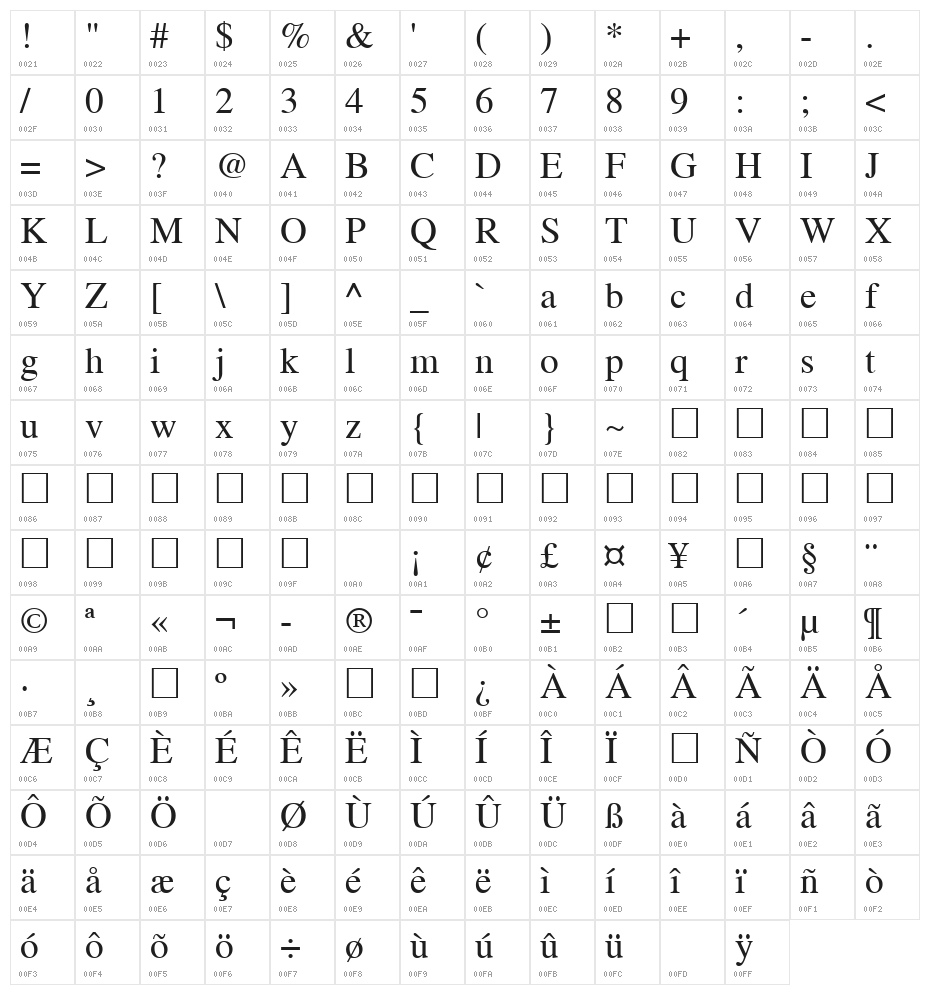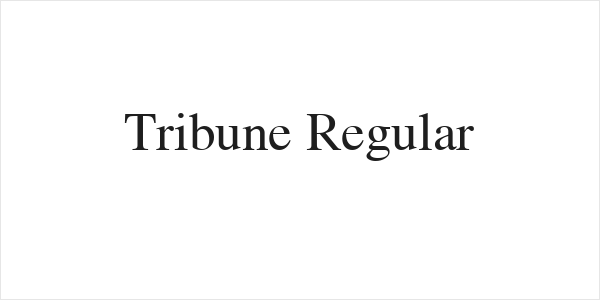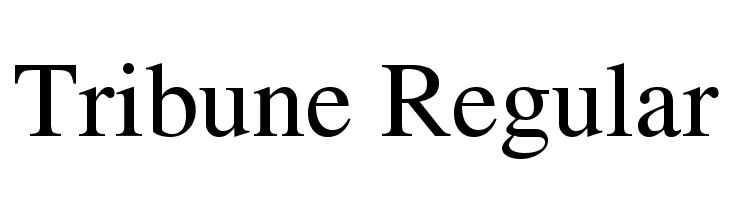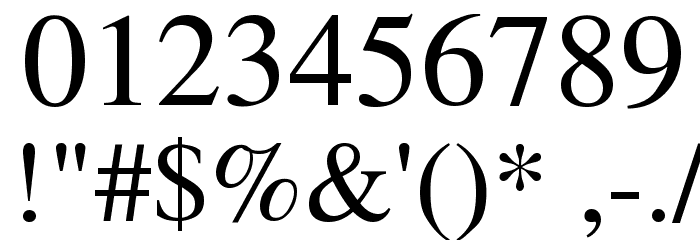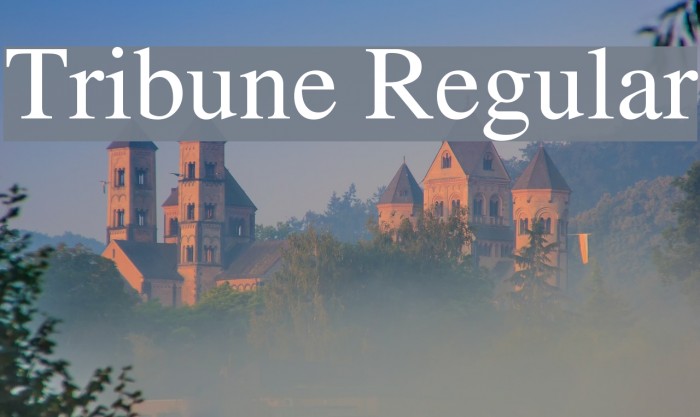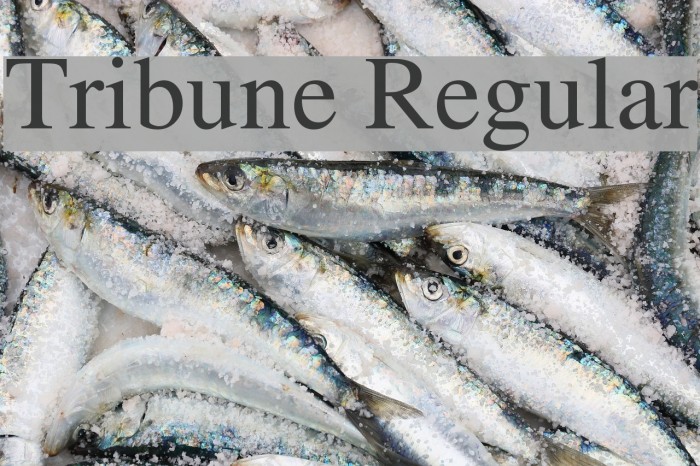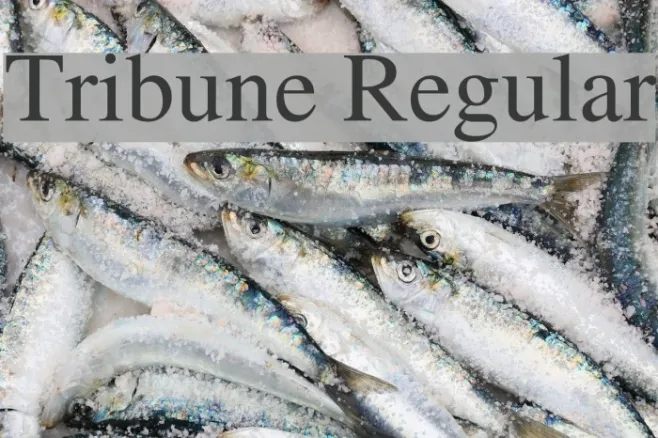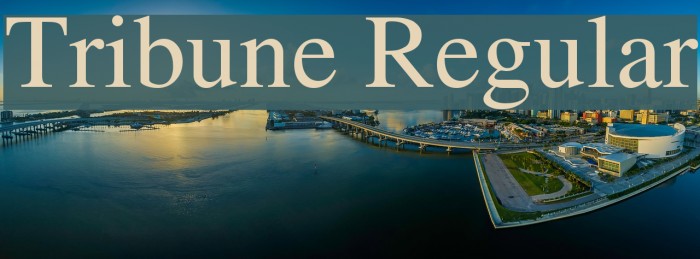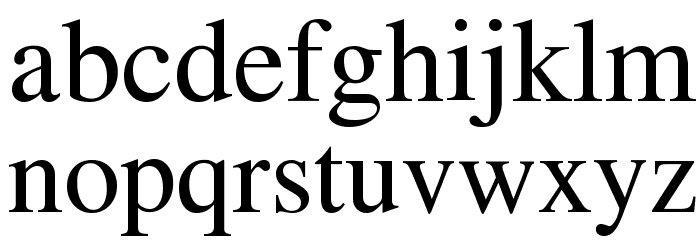
Tribune Regular Font
Tribune Regular Description
This typeface exudes a classic and timeless elegance, characterized by its strong, clean lines and balanced proportions. The serifs are pronounced, providing a sense of stability and tradition. The uppercase letters are bold and commanding, while the lowercase letters maintain a harmonious flow. The numerals are clear and legible, making them suitable for both formal and informal contexts. Special characters are well-integrated, ensuring versatility across different types of text. Overall, this font combines readability with a touch of sophistication, making it ideal for a wide range of applications.
| Overall Style | Classic |
| Use Case | Headlines, Body text, Logos |
| Proposed Projects | Ideal for editorial design, book covers, formal invitations, and corporate branding. |